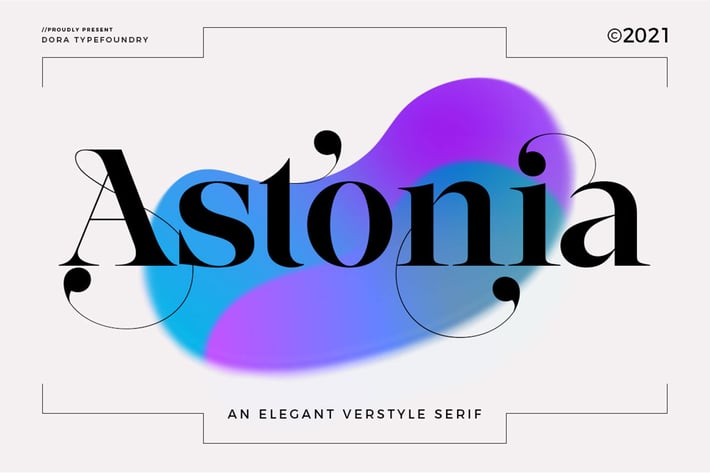
Astonia Typeface
Introducing,Astonia is a serif typeface crafted with elegance and luxury, exuding femininity and glamor but also a side of beauty with plenty of alternatives and bindings to help you create unlimited variations for your creative needs. Its stark contrasts and subtle details, together with sumptuous strokes and voluptuous curves, create a beautiful and powerful statement for any typographic composition, blending glamor with contemporary aesthetics.
Astonia elegant serif really helps you create unlimited variations for your creative needs in creating your project titles: such as fashion, magazines, logos, branding, photography, invitations, wedding invitations, quotes, blog headers, posters, advertisements, postcards, books, websites web, etc.
Full set of uppercase, lowercase letters
25 Ligatures
148 Alternates
Numbers, symbols & punctuation
Characters with accents
Supports Multiple Languages